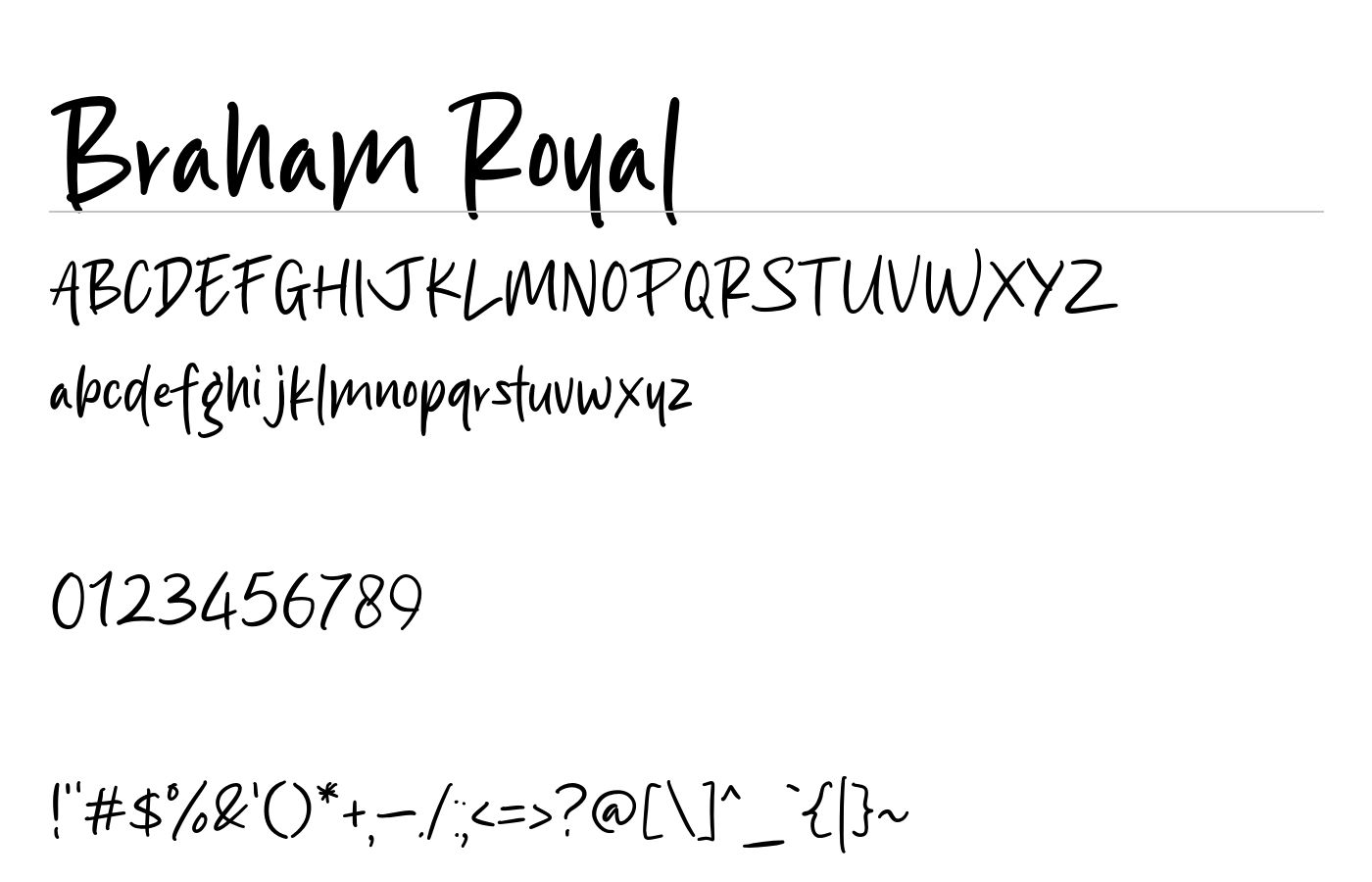
Braham Royal is a casual, handwritten script font with a lively and informal feel, perfect for adding a personal touch to your designs. Its slender, upright letterforms with varying stroke widths and playful, slightly irregular shapes give it a warm and approachable character, making it ideal for creative branding, invitations, and social media graphics. This font works best when you want to convey friendliness and creativity while maintaining readability.
Braham Royal Font
About Braham Royal Font